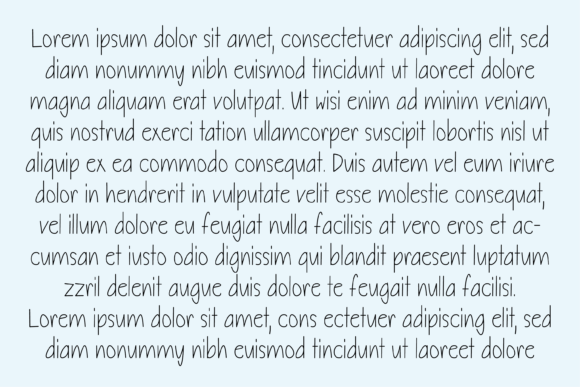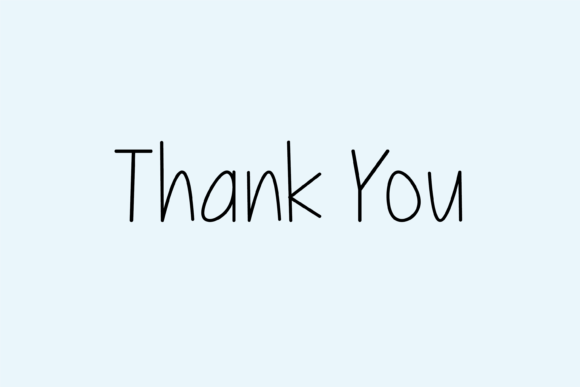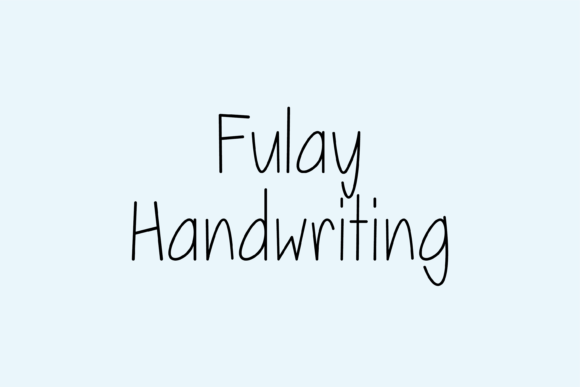
Fulay Font: Adding a Touch of Whimsy to Your Designs
In the world of typography, fonts play a crucial role in conveying the tone and personality of a design. If you’re looking for a font that can add a touch of whimsy and friendliness to your projects, look no further than Fulay Font. This simple yet charming handwritten font is perfect for designers and crafters who want to create unique and eye-catching designs.
What is Fulay Font?
Fulay Font is a beautiful, handwritten typeface that exudes a sense of simplicity and friendliness. Its whimsical and slightly quirky design makes it perfect for a wide range of applications, from logos and wedding invitations to quotes, advertisements, and more. With its clean lines and elegant curves, Fulay Font is sure to brighten up any design and make it stand out.
Characteristics of Fulay Font
Fulay Font has several characteristics that make it a versatile and attractive choice for designers. Some of its key features include:
- Simple and Handwritten: Fulay Font has a simple, handwritten design that gives it a personal and approachable feel.
- Whimsical and Quirky: The font’s whimsical and quirky design elements make it perfect for designs that require a touch of playfulness.
- Clean Lines: Fulay Font features clean lines and elegant curves, making it easy to read and visually appealing.
- Versatile: This font is perfect for a wide range of applications, from logos and wedding invitations to quotes, advertisements, and more.
Uses of Fulay Font
Fulay Font is a versatile typeface that can be used in a variety of design projects. Some of the most popular uses of this font include:
- Logos: Fulay Font is perfect for creating unique and memorable logos that reflect the personality of your brand.
- Wedding Invitations: The font’s whimsical and romantic design makes it perfect for wedding invitations and other stationery.
- Quotes: Fulay Font is great for creating inspirational quotes, posters, and social media graphics.
- Advertisements: The font’s clean lines and elegant curves make it perfect for use in advertisements, flyers, and brochures.
- Print and Magazines: Fulay Font can be used in a variety of print materials, including magazines, newspapers, and books.
Why Choose Fulay Font?
There are many reasons why Fulay Font is a great choice for designers and crafters. Some of the benefits of using this font include:
- Unique Design: Fulay Font has a unique and eye-catching design that will make your designs stand out.
- Easy to Read: The font’s clean lines and elegant curves make it easy to read, even at small sizes.
- Versatile: Fulay Font can be used in a wide range of design projects, from logos and wedding invitations to quotes and advertisements.
- High-Quality: This font is of high quality, making it perfect for professional designs.
Tips for Using Fulay Font
| Font Name | Fulay Font |
| Author | Woracado |
In conclusion, Fulay Font is a beautiful and versatile handwritten font that can add a touch of whimsy and friendliness to your designs. With its simple yet charming design, clean lines, and elegant curves, this font is perfect for a wide range of applications, from logos and wedding invitations to quotes, advertisements, and more. Whether you’re a designer or crafter, Fulay Font is a great choice for anyone looking to create unique and eye-catching designs.